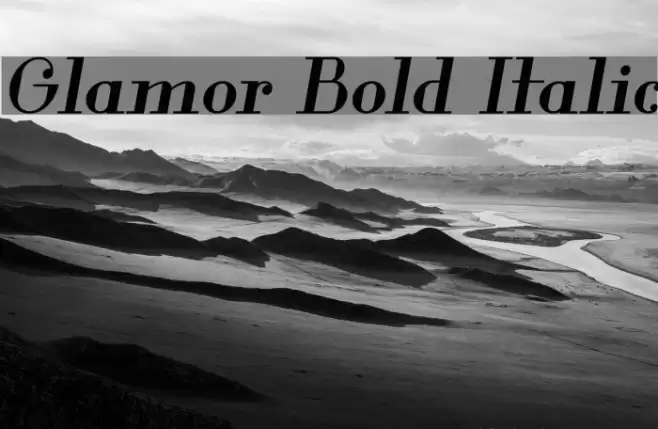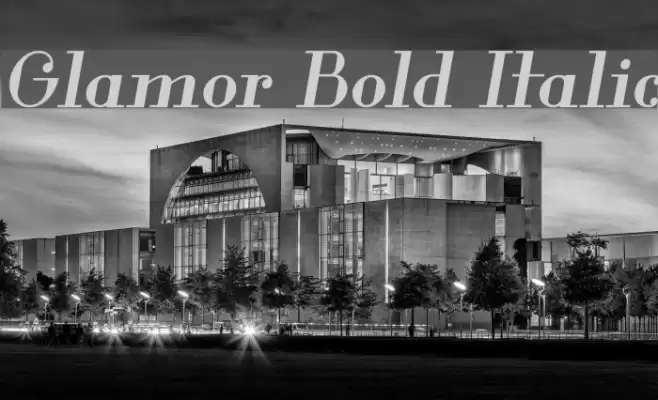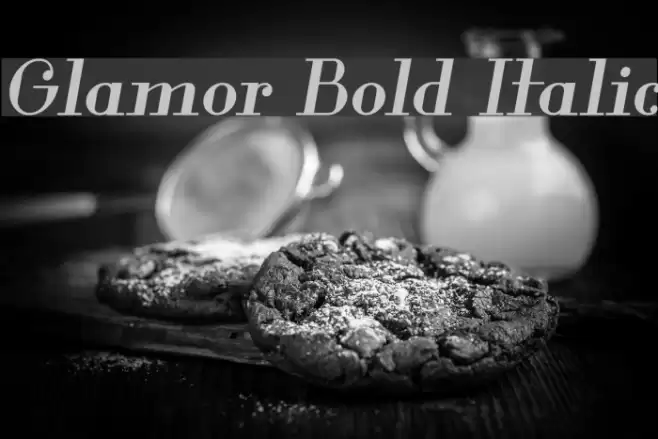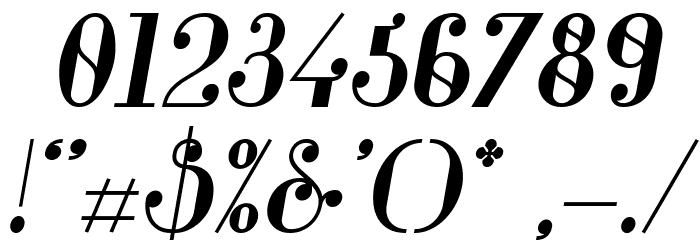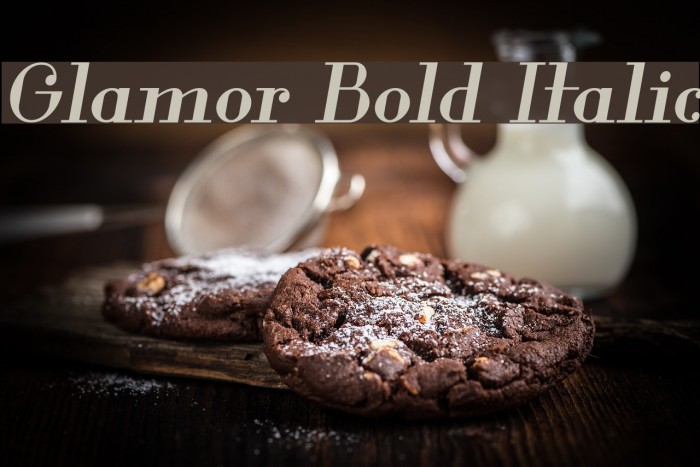
Glamor Bold Italic Font
Glamor Bold Italic Description
This font exudes elegance and sophistication with its bold and italicized serif style. The characters are meticulously crafted with high contrast between thick and thin strokes, giving it a dramatic and stylish appearance. The uppercase letters are particularly striking, with a slight slant that adds a dynamic feel. The lowercase letters maintain a consistent flow, enhancing readability while retaining a sense of luxury. The numerals are well-balanced, complementing the overall aesthetic. Special characters are designed with flair, making them suitable for decorative purposes.
A bold, italic serif font with high contrast and elegant style from Serif fonts.
- Proposed Projects: Ideal for luxury branding, fashion magazines, wedding invitations, and high-end product packaging.
- Overall Style: Elegant, Sophisticated
- Use Case: Headlines, Logos, Invitations